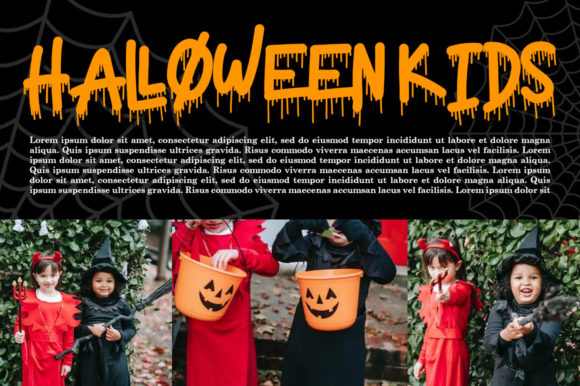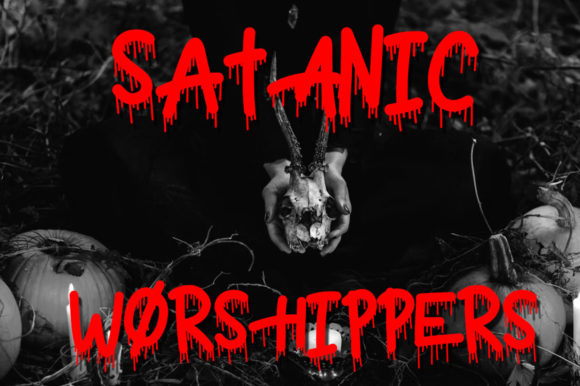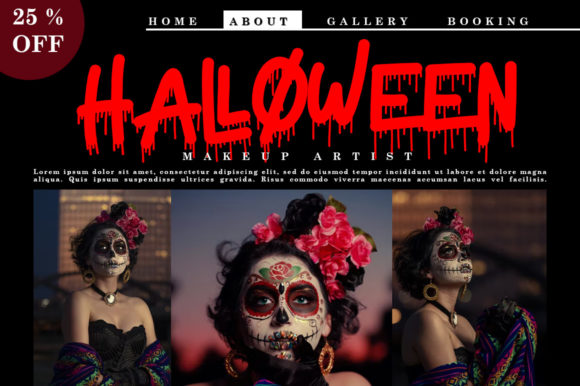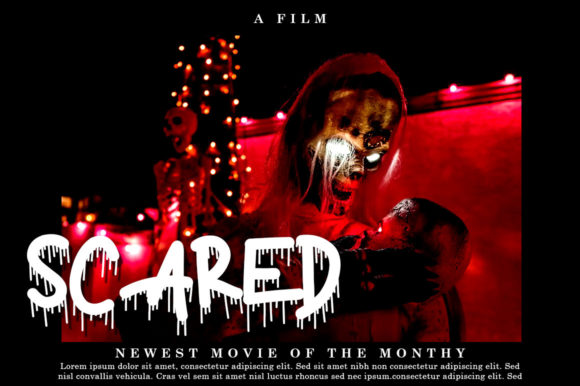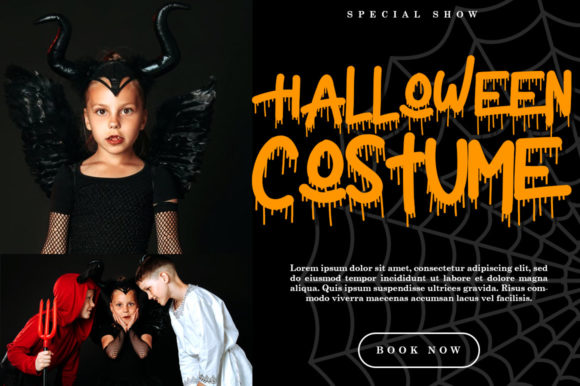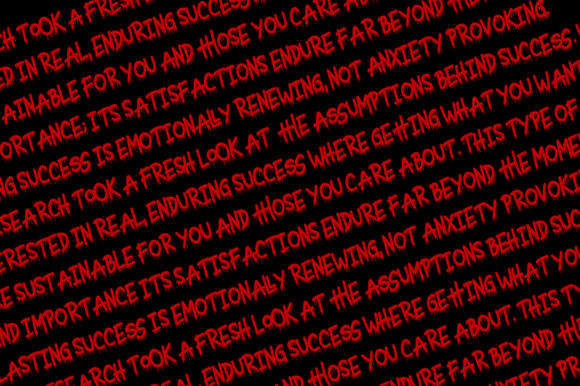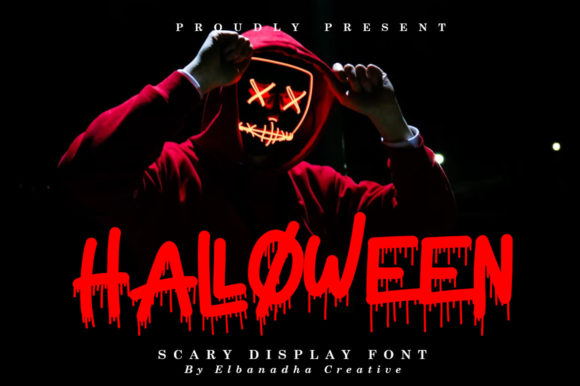
Unleash the Spooky Spirit: A Comprehensive Guide to Halloween Font
As the spookiest time of the year approaches, designers and crafters are on the lookout for the perfect typography to add a touch of eeriness to their Halloween-themed creations. Look no further than the Halloween Font, a scary, creepy, quirky, and cool display font that’s sure to cast a spell on your audience. In this article, we’ll dive into the world of Halloween Font, exploring its features, uses, and benefits for designers and crafters alike.
What is Halloween Font?
Halloween Font is a unique and eye-catching display font designed specifically for the spookiest time of the year. With its creepy and quirky style, this font is perfect for adding a touch of Halloween spirit to any design project. Whether you’re creating party invitations, greeting cards, social media posts, or any other type of Halloween-themed content, Halloween Font is sure to make your designs stand out.
Key Features of Halloween Font
So, what makes Halloween Font so special? Here are just a few of its key features:
- PUA Encoding: Halloween Font is PUA (Private Use Area) encoded, which means you can access all of the glyphs and swashes with ease. This makes it simple to add special characters and flourishes to your designs, giving them an extra touch of personality.
- Creepy and Quirky Style: Halloween Font has a truly unique and eye-catching style that’s perfect for Halloween-themed designs. Its creepy and quirky aesthetic is sure to add a touch of spookiness to any project.
- Versatility: Halloween Font can be used for a wide range of design projects, from party invitations and greeting cards to social media posts and more.
Uses for Halloween Font
So, how can you use Halloween Font in your designs? Here are just a few ideas to get you started:
- Party Invitations: Create spooky and eye-catching party invitations that will set the tone for a howling good time.
- Greeting Cards: Design creepy and quirky greeting cards that will make your friends and family laugh or shiver with delight.
- Social Media Posts: Add a touch of Halloween spirit to your social media posts with eye-catching graphics and typography.
- Crafting Projects: Use Halloween Font to add a personal touch to your crafting projects, such as scrapbooking, card making, and more.
So, what are the benefits of using Halloween Font for designers and crafters? Here are just a few:
- Save Time: With Halloween Font, you can quickly and easily create spooky and eye-catching designs without spending hours searching for the perfect font or grappling with complicated design software.
- Stand Out: Halloween Font is a unique and eye-catching font that’s sure to make your designs stand out from the crowd.
- Ease of Use: Halloween Font is easy to use, even for designers and crafters who are new to typography or design.
Tips and Tricks for Using Halloween Font
Here are a few tips and tricks for getting the most out of Halloween Font:
- Combine with Other Fonts: Try combining Halloween Font with other fonts to create a unique and eye-catching look.
- Use Swashes and Glyphs: Take advantage of the PUA encoding to add special characters and flourishes to your designs.
In conclusion, Halloween Font is a must-have for designers and crafters looking to add a touch of spookiness to their Halloween-themed designs. With its creepy and quirky style, PUA encoding, and versatility, this font is perfect for a wide range of design projects. Whether you’re creating party invitations, greeting cards, social media posts, or crafting projects, Halloween Font is sure to make your designs stand out. So why wait? Download Halloween Font today and unleash the spooky spirit in your designs!